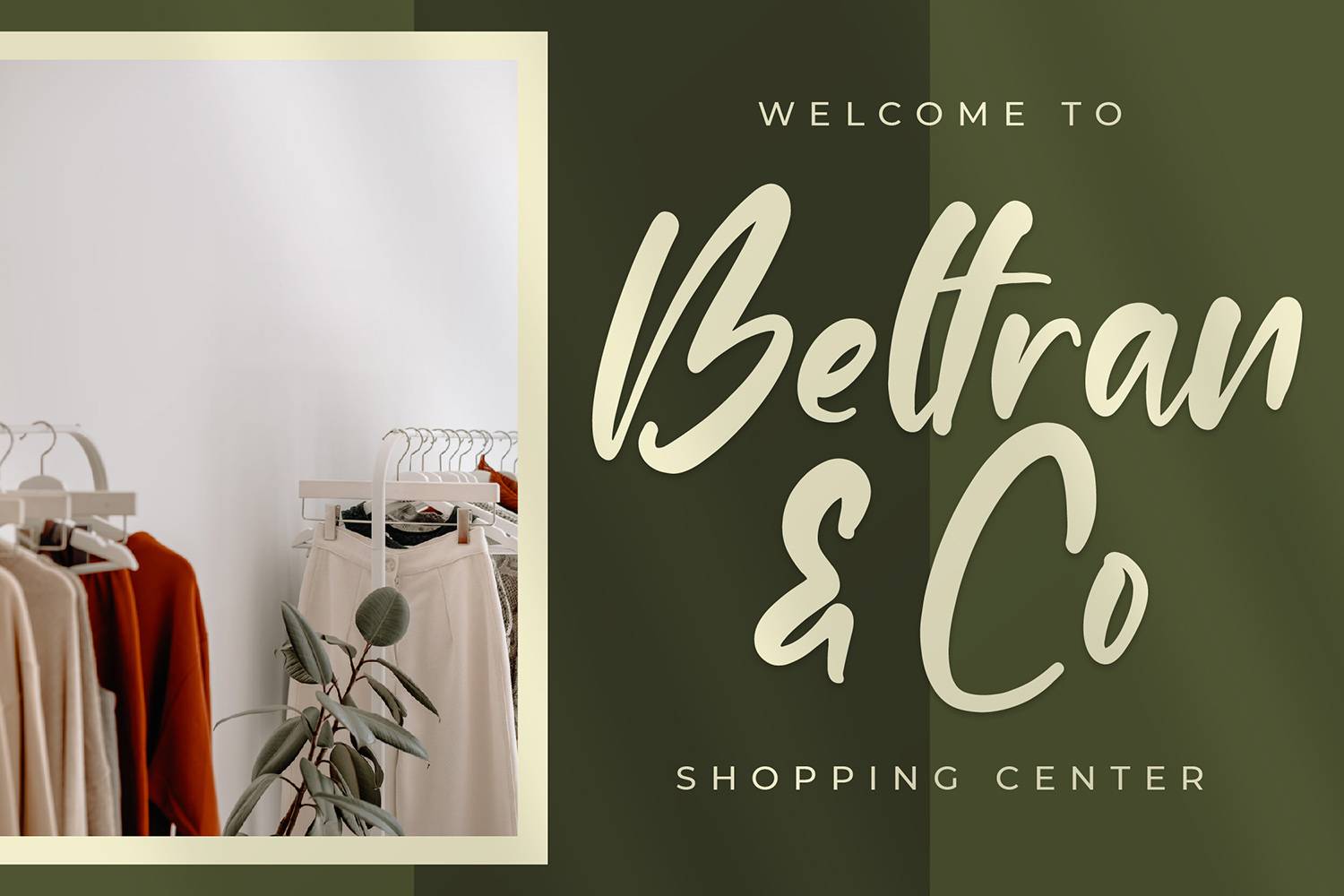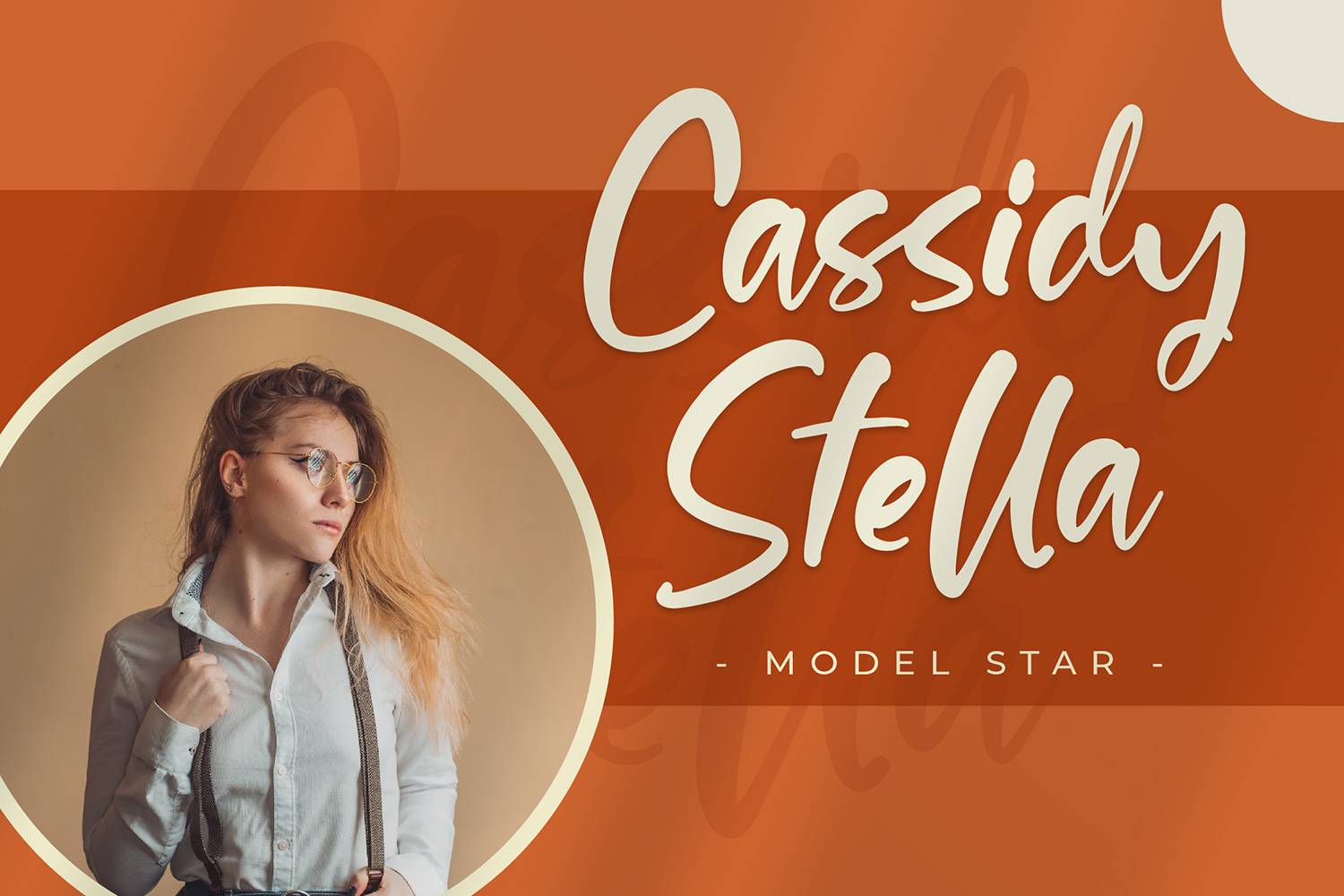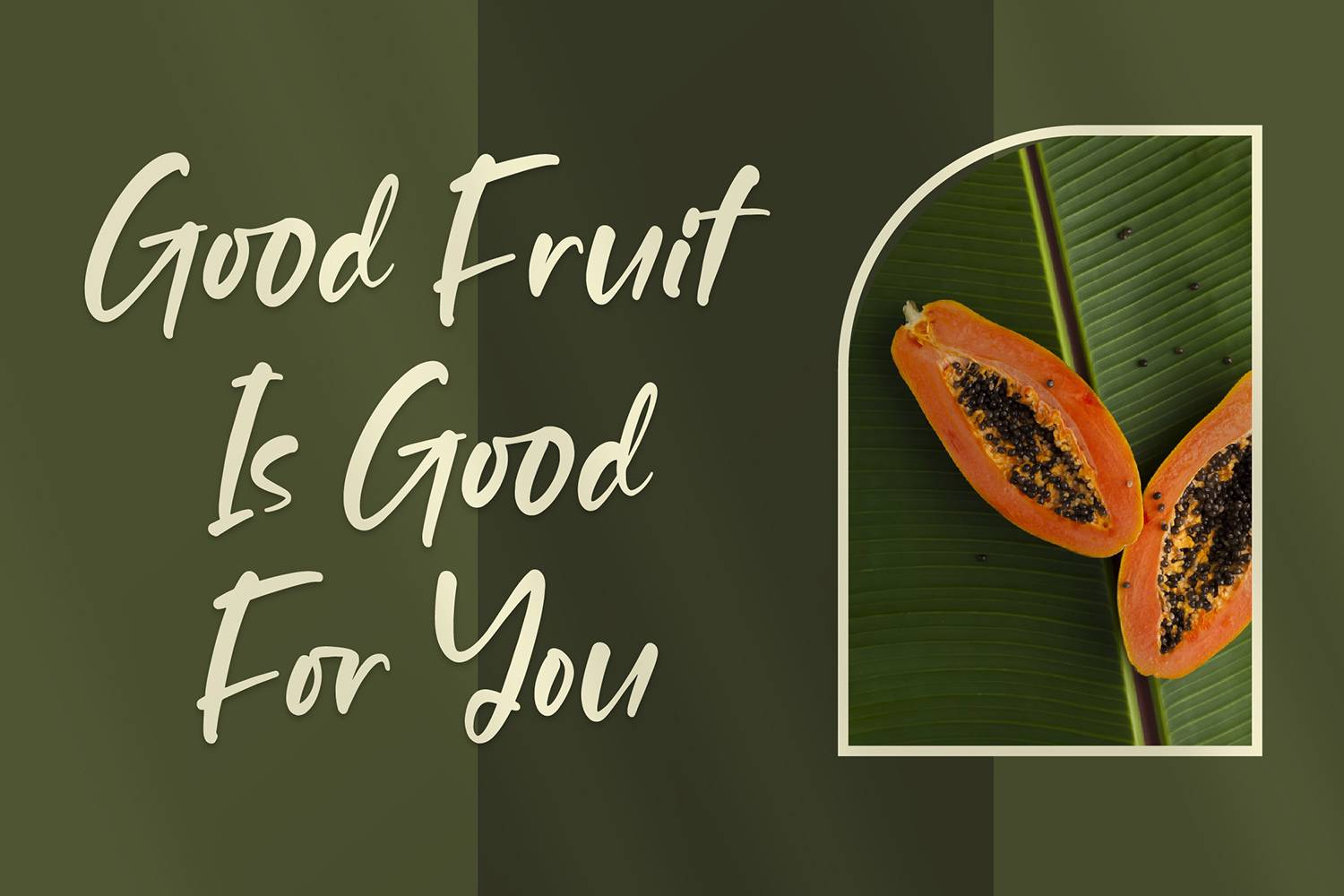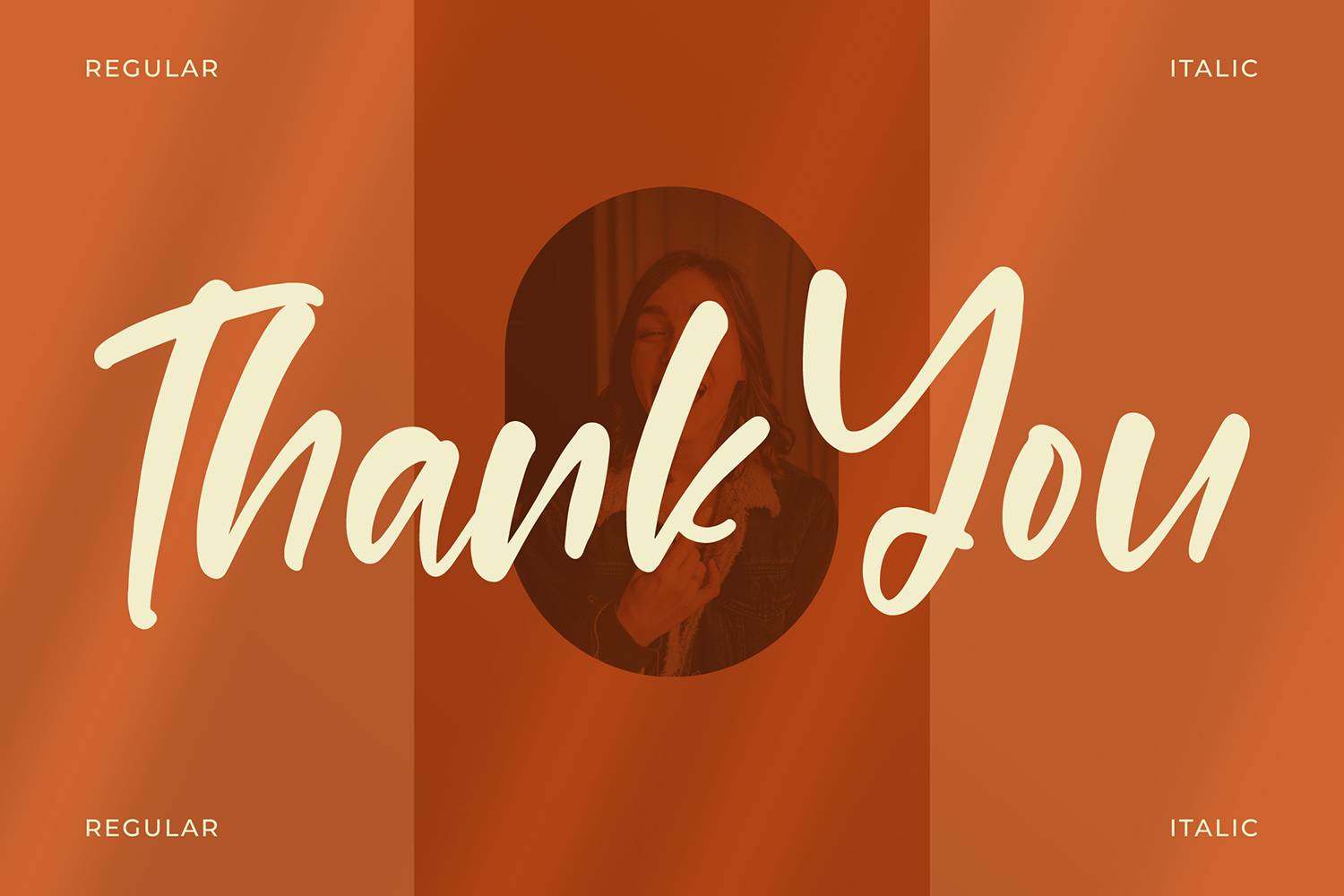
Tonicha is a lively and casual script font featuring varying stroke widths that mimic natural handwriting with a smooth, flowing style. Its playful yet elegant character makes it ideal for creative branding, invitations, and headlines where a personal, approachable feel is desired. This font works well in projects that benefit from a friendly, artistic touch without sacrificing readability.
Tonicha Font
About Tonicha Font